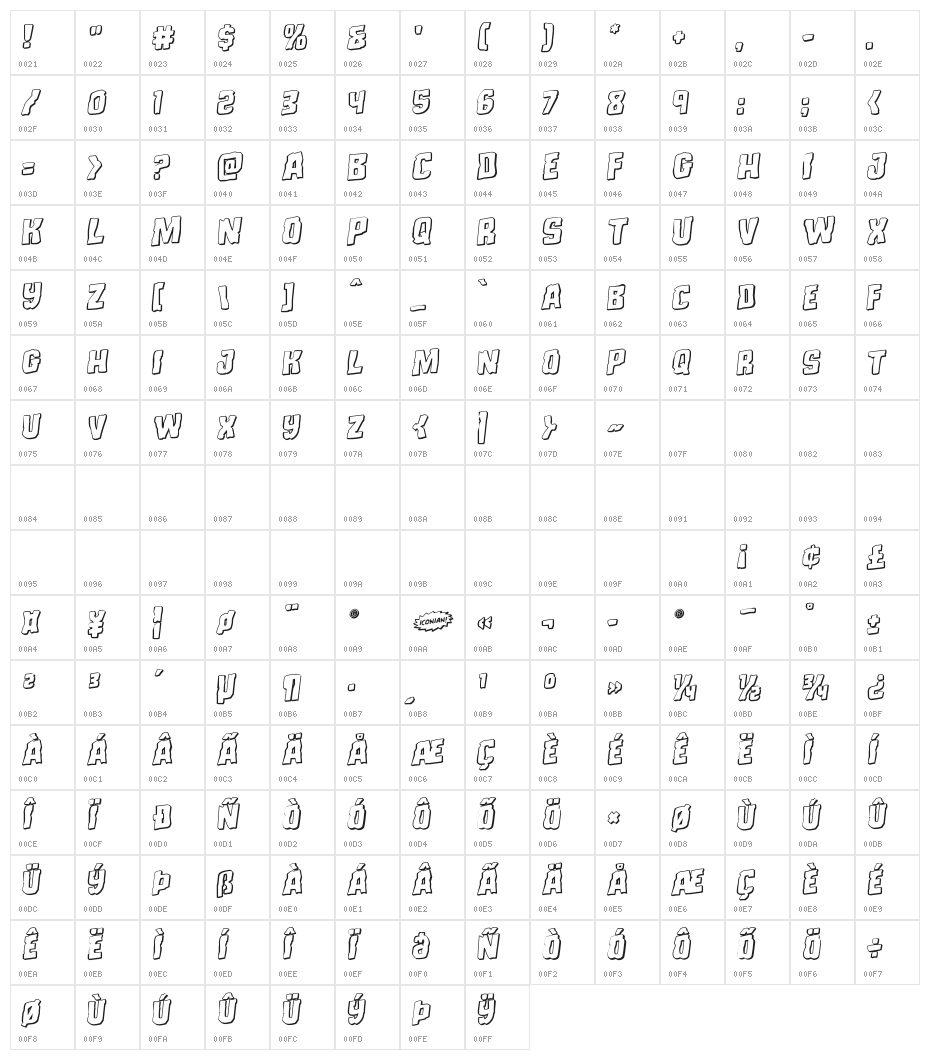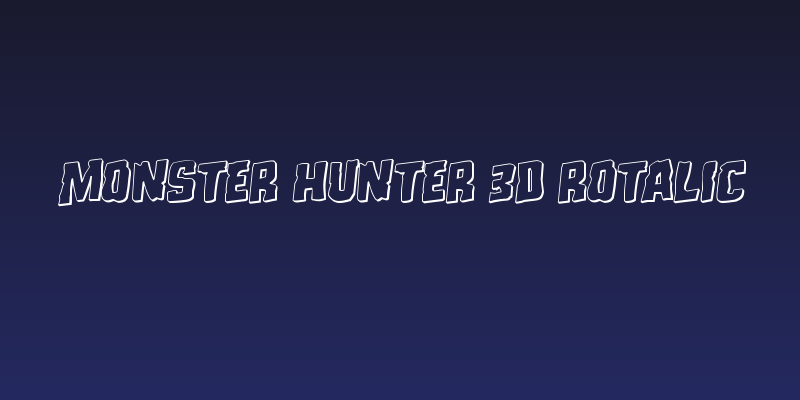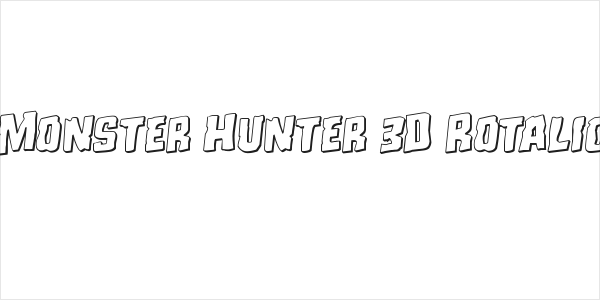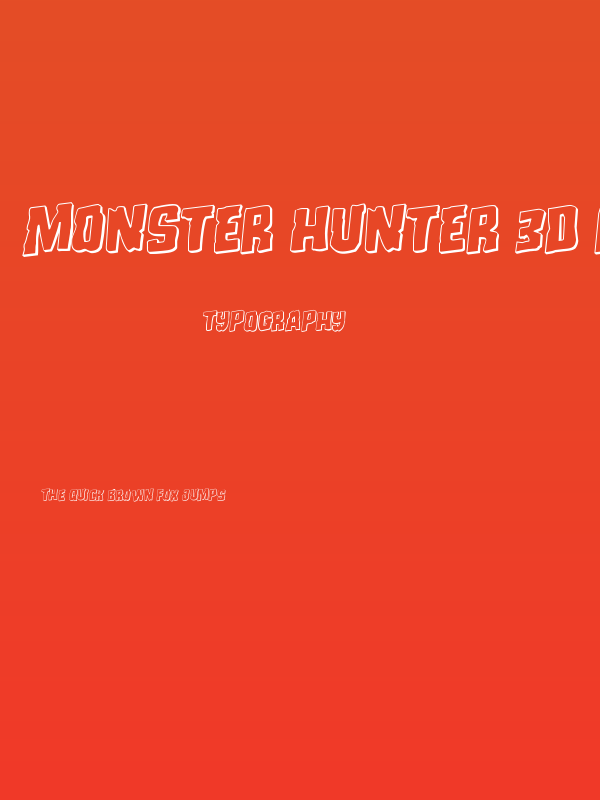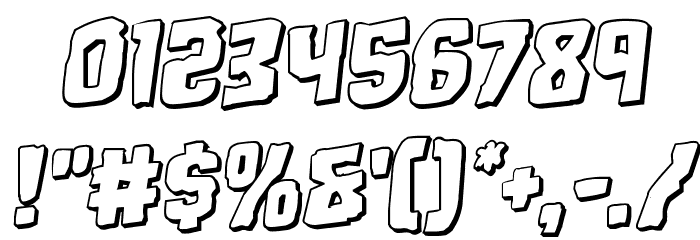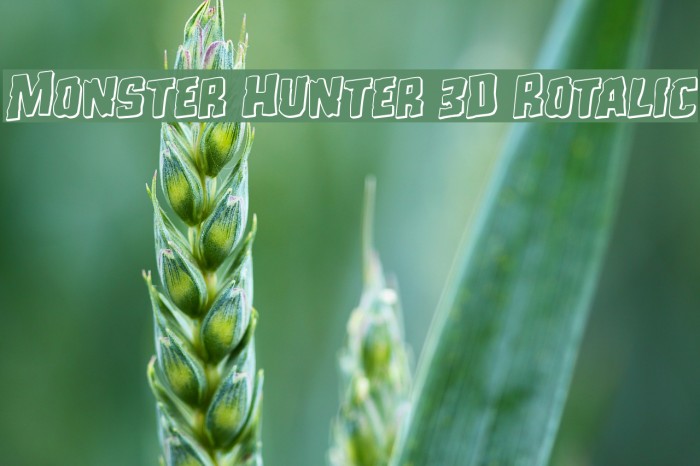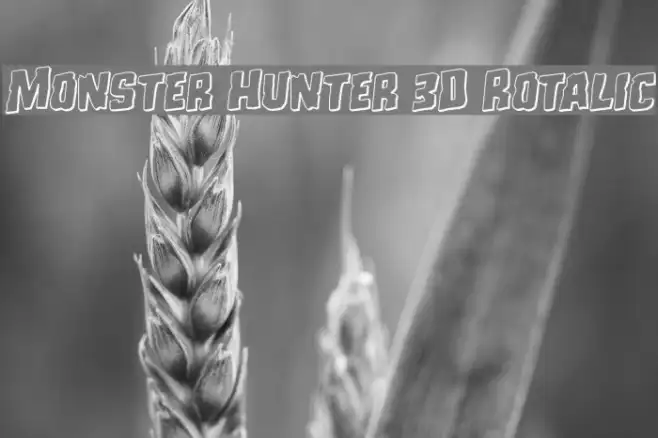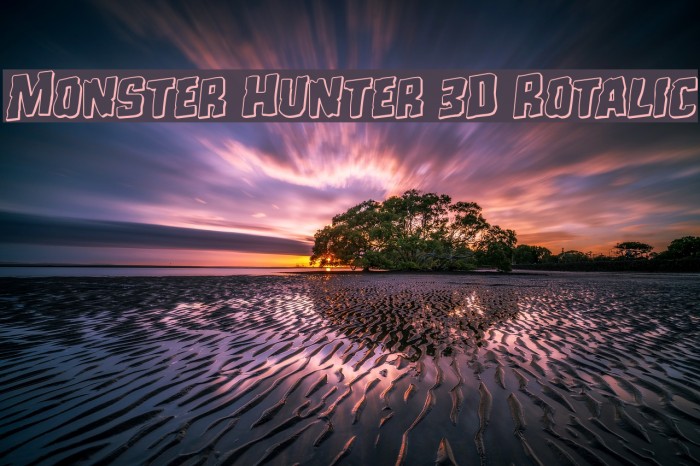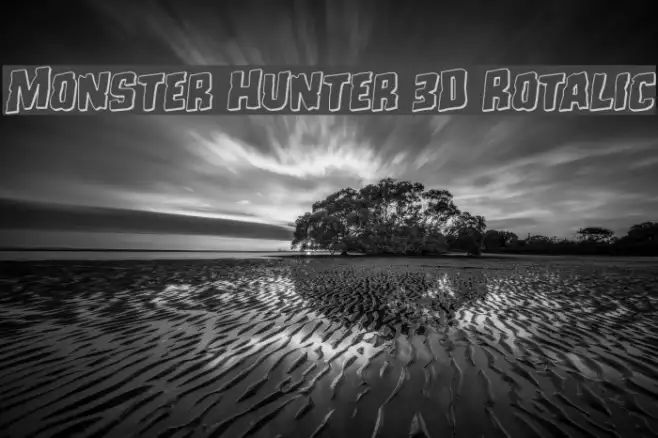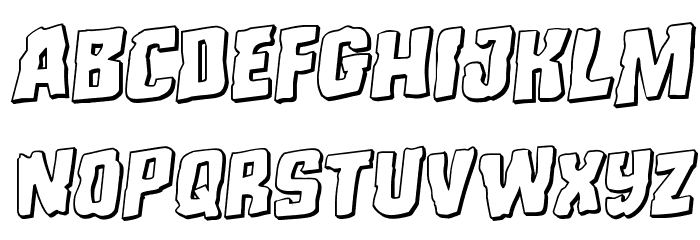
Monster Hunter 3D Rotalic Font
Monster Hunter 3D Rotalic Description
This font features a bold, three-dimensional style with a playful and adventurous vibe. The letters are outlined with a thick black border, giving them a striking appearance. The characters have a slightly italicized slant, adding a dynamic and energetic feel. The font is highly legible, with each letter distinctly separated, making it suitable for eye-catching headlines or titles. The numbers and special characters maintain the same bold and outlined style, ensuring consistency across all text elements. This font is ideal for projects that require a fun and engaging aesthetic.
| Proposed Projects | Ideal for video game titles, movie posters, comic book covers, and adventure-themed branding. |